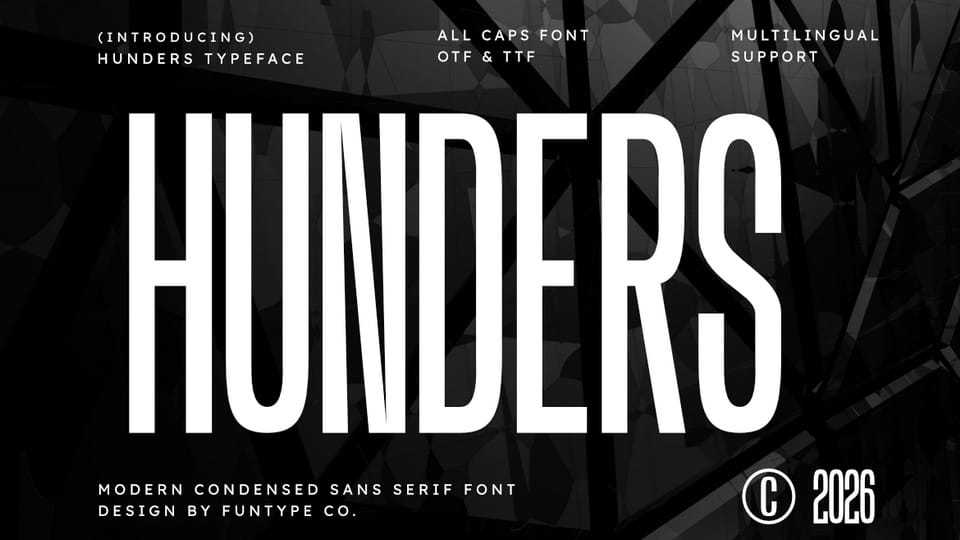
Download Hunders font, a bold and powerful modern condensed sans serif typeface designed for high-impact and elegant typography.
Designer: Funtype Co.